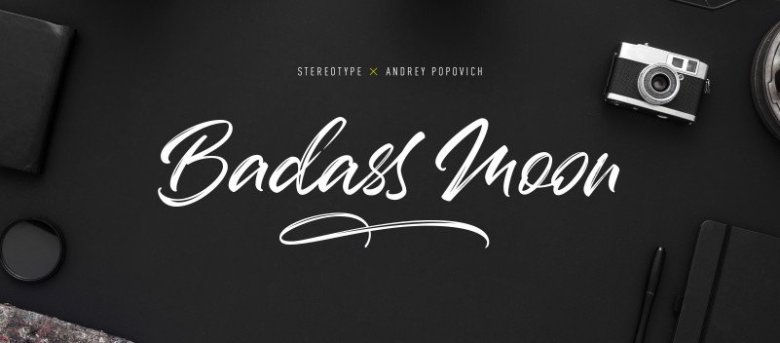
Badass Moon Brush Font
Introducing Badass Moon Font! It is designed and shared by StereoType. Badass Moon is a cool script font made from the lettering work of Andrey Popovich. It’s works perfectly on greeting cards, invitations, weddings, posters, magazines, fashion world, brands and logos, packaging, etc. He is friendly and kind, fresh and fun to work with. The full commercial version includes a huge set of 115 alternates, contextual ligatures and underlining.